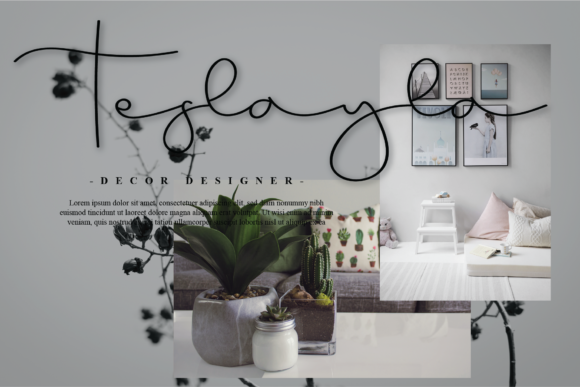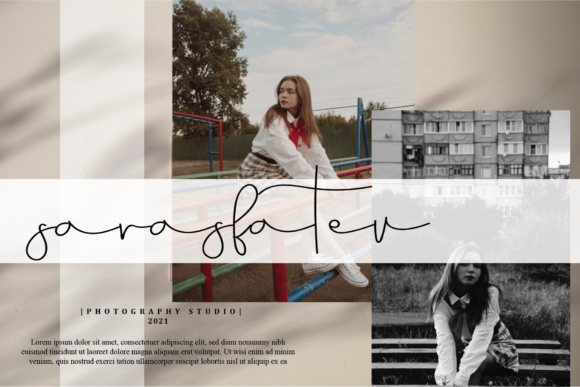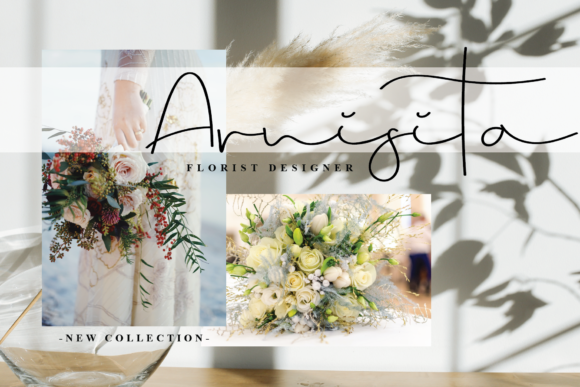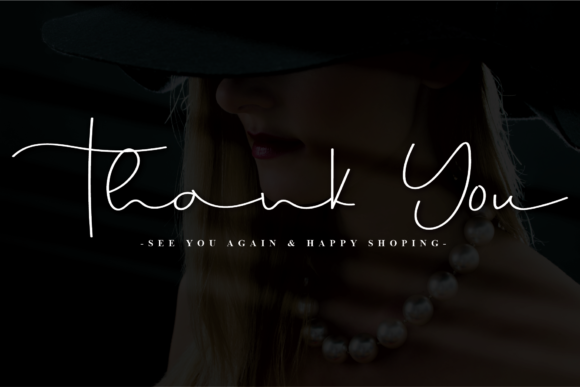
Introducing Blush Font: The Perfect Addition to Your Creative Projects
Are you a designer, crafter, or DIY enthusiast looking for a unique and eye-catching font to elevate your creative projects? Look no further than Blush Font, a thin lettered script font that is sure to add a touch of charm and playfulness to your designs. In this article, we’ll take a closer look at Blush Font, its features, and how you can use it to make your projects stand out.
What is Blush Font?
Blush Font is a beautiful, hand-crafted script font that features thin, elegant letters with a playful twist. Each character seems to dance along the baseline, giving your text a sense of movement and energy. The font is perfect for adding a touch of whimsy and sophistication to your designs, making it ideal for a wide range of creative projects, from invitations and greeting cards to branding and advertising materials.
Key Features of Blush Font
- Thin lettered script font: Blush Font features delicate, thin letters that are perfect for creating elegant and sophisticated designs.
- Charming and playful characters: Each character in Blush Font has a unique personality, with a playful twist that adds energy and movement to your text.
- Dances along the baseline: The font’s playful characters seem to dance along the baseline, creating a sense of movement and dynamism.
- Perfect for creative projects: Blush Font is ideal for a wide range of creative projects, from invitations and greeting cards to branding and advertising materials.
How to Use Blush Font in Your Designs
Blush Font is incredibly versatile and can be used in a variety of creative projects. Here are a few ideas to get you started:
- Invitations and greeting cards: Add a touch of elegance and sophistication to your invitations and greeting cards with Blush Font.
- Branding and advertising materials: Use Blush Font to create eye-catching branding and advertising materials, such as logos, brochures, and flyers.
- DIY crafts: Add a personal touch to your DIY crafts, such as scrapbooking, journaling, and handmade cards, with Blush Font.
- Social media graphics: Use Blush Font to create eye-catching social media graphics, such as quote graphics, Facebook posts, and Instagram stories.
Tips for Getting the Most Out of Blush Font
Here are a few tips for getting the most out of Blush Font:
- Experiment with different colors: Blush Font looks great in a variety of colors, so don’t be afraid to experiment and find the perfect color for your design.
- Pair with other fonts: Blush Font pairs well with other fonts, so try combining it with a bold font for added contrast.
- Use it sparingly: Blush Font is a statement font, so use it sparingly to add emphasis and create visual interest.